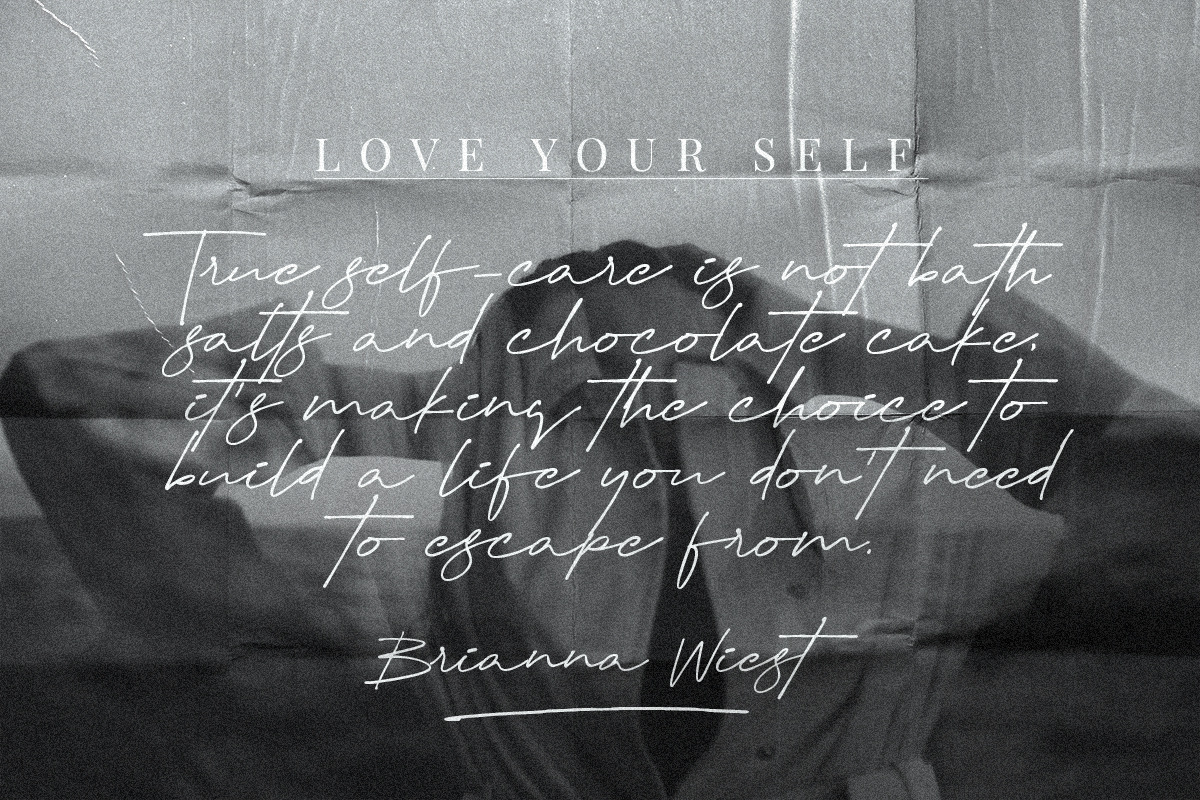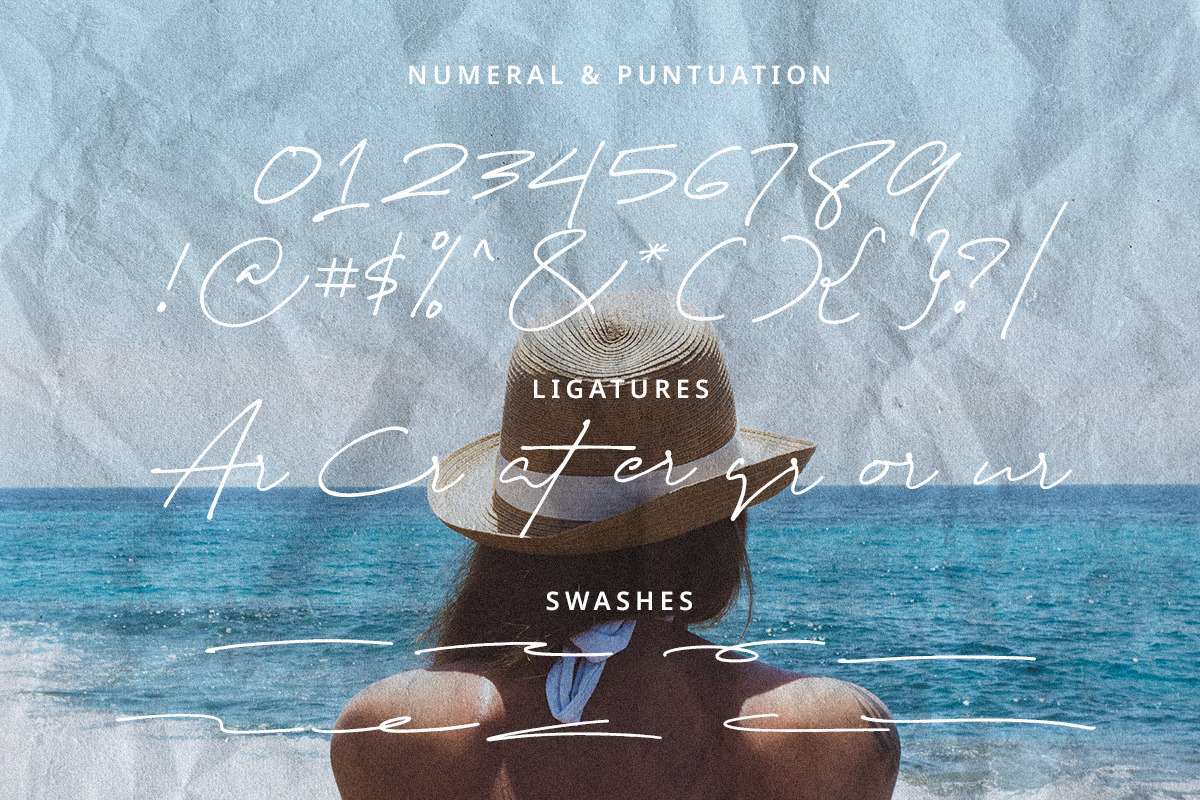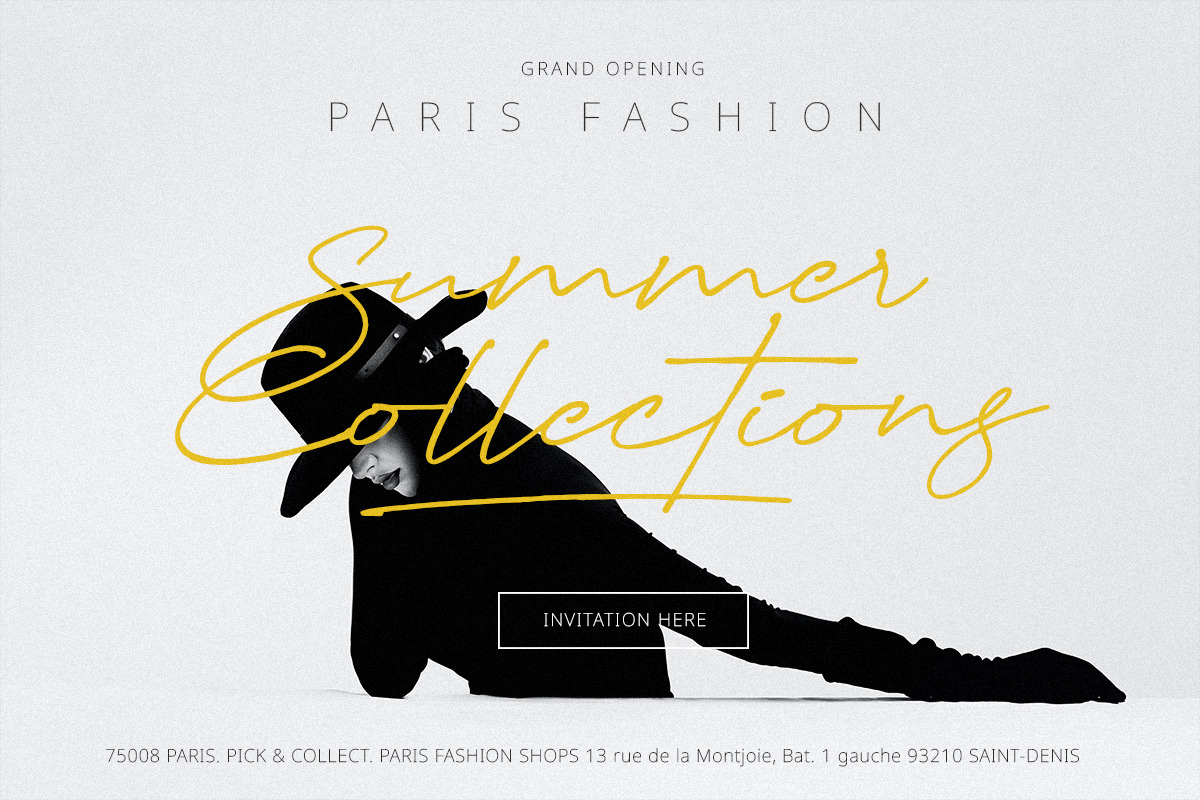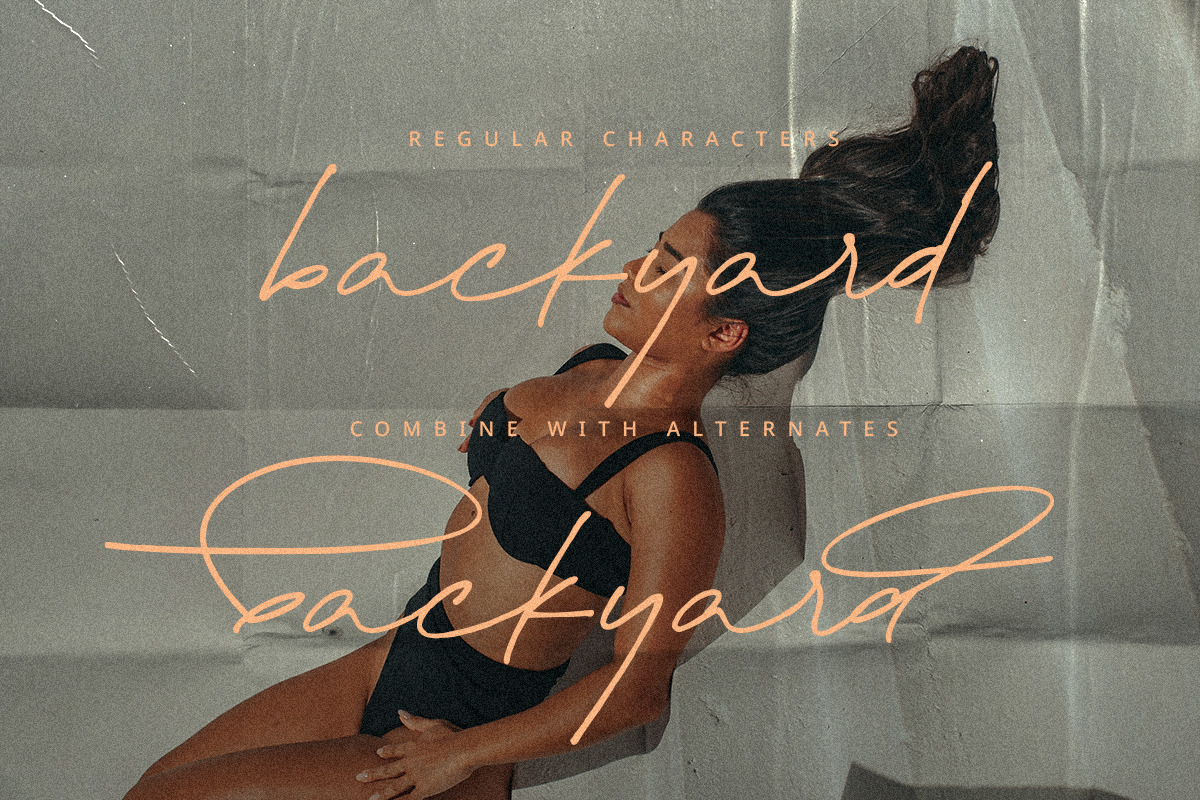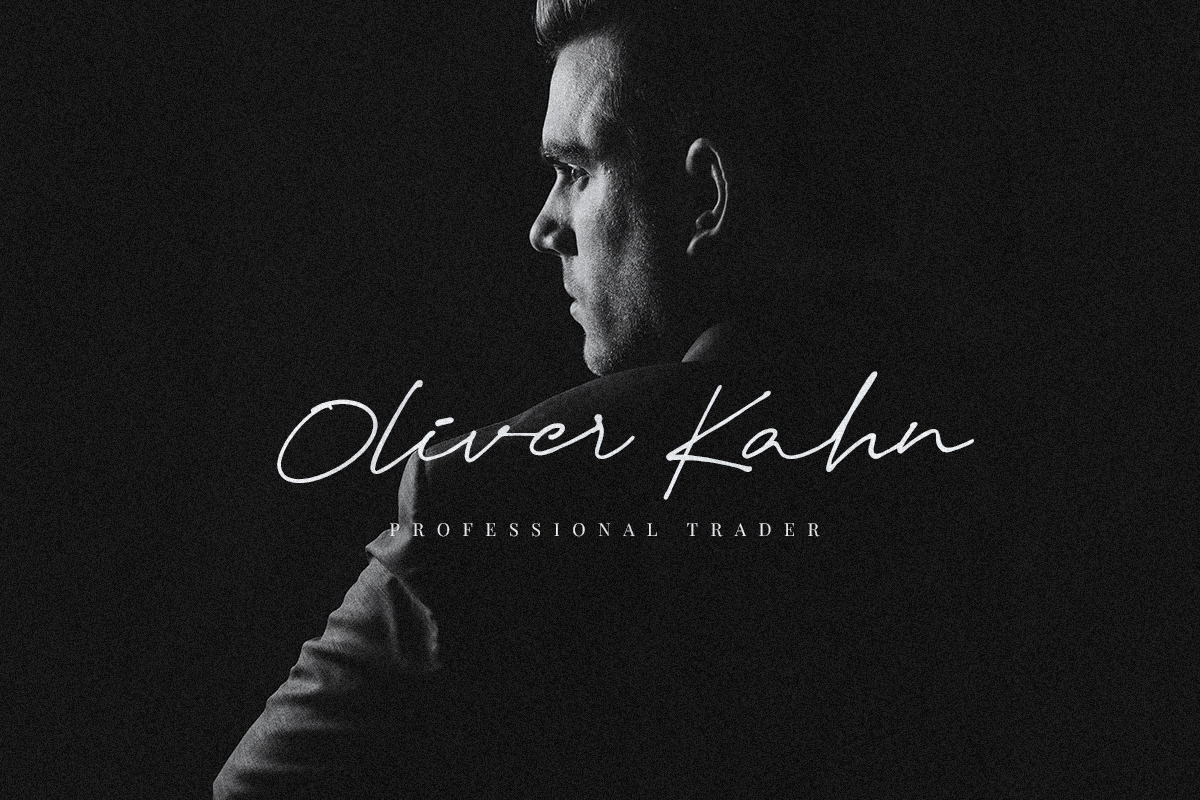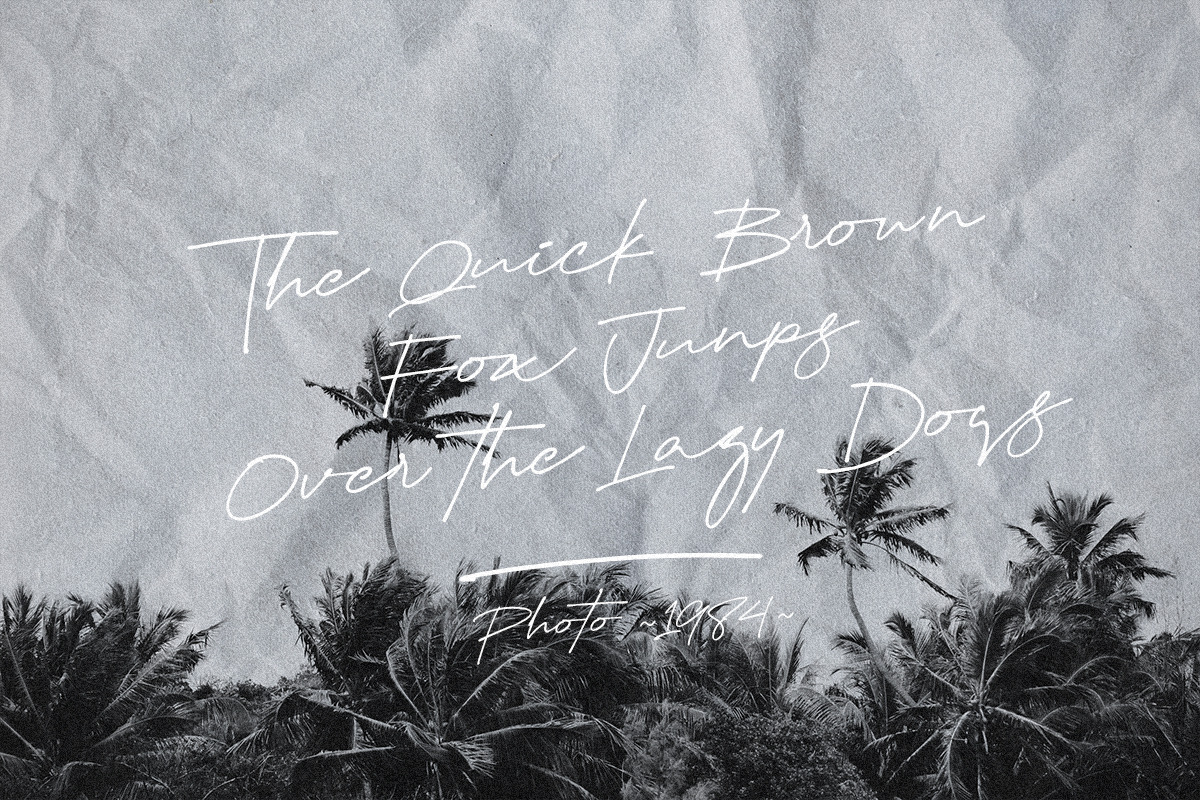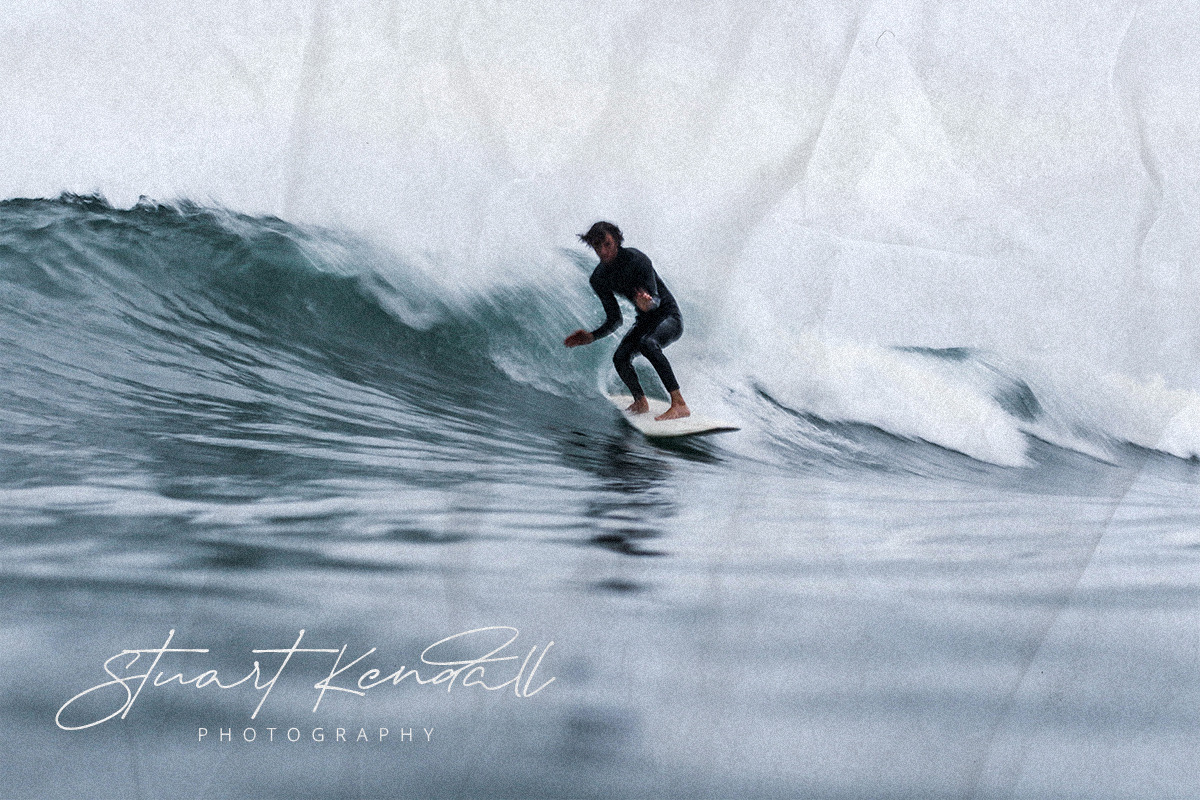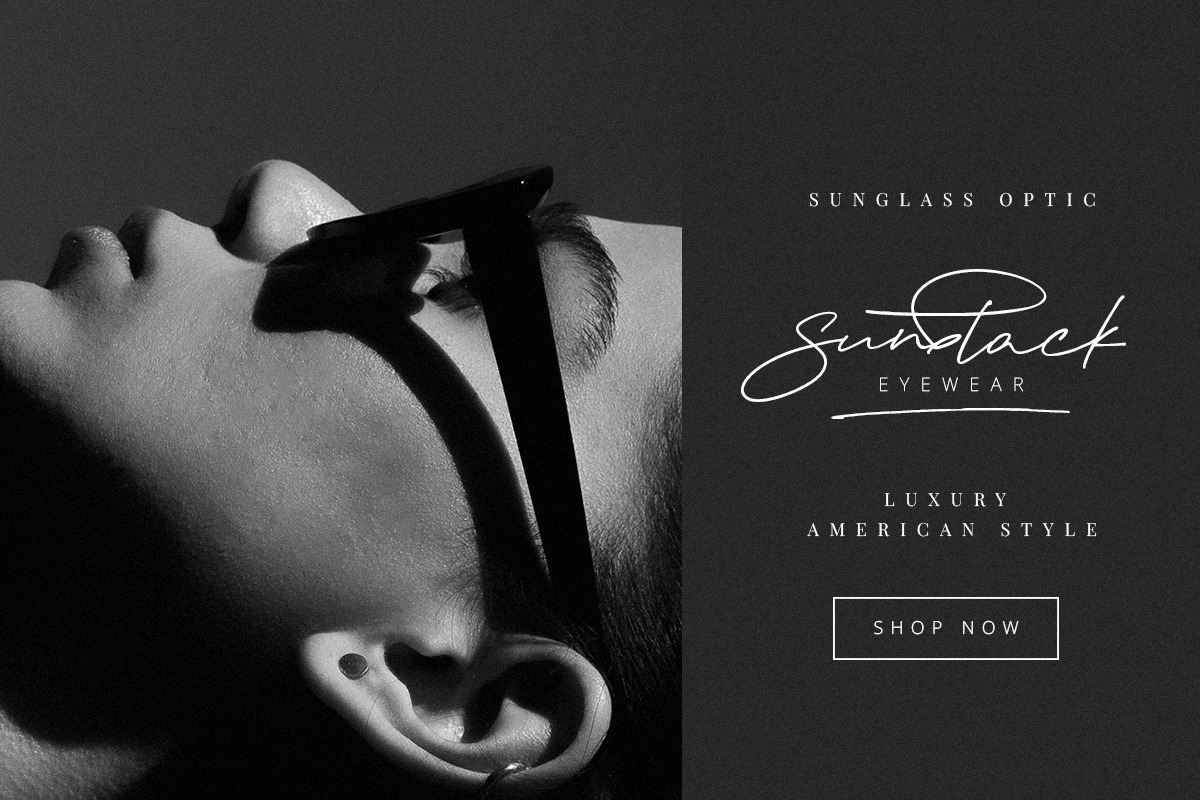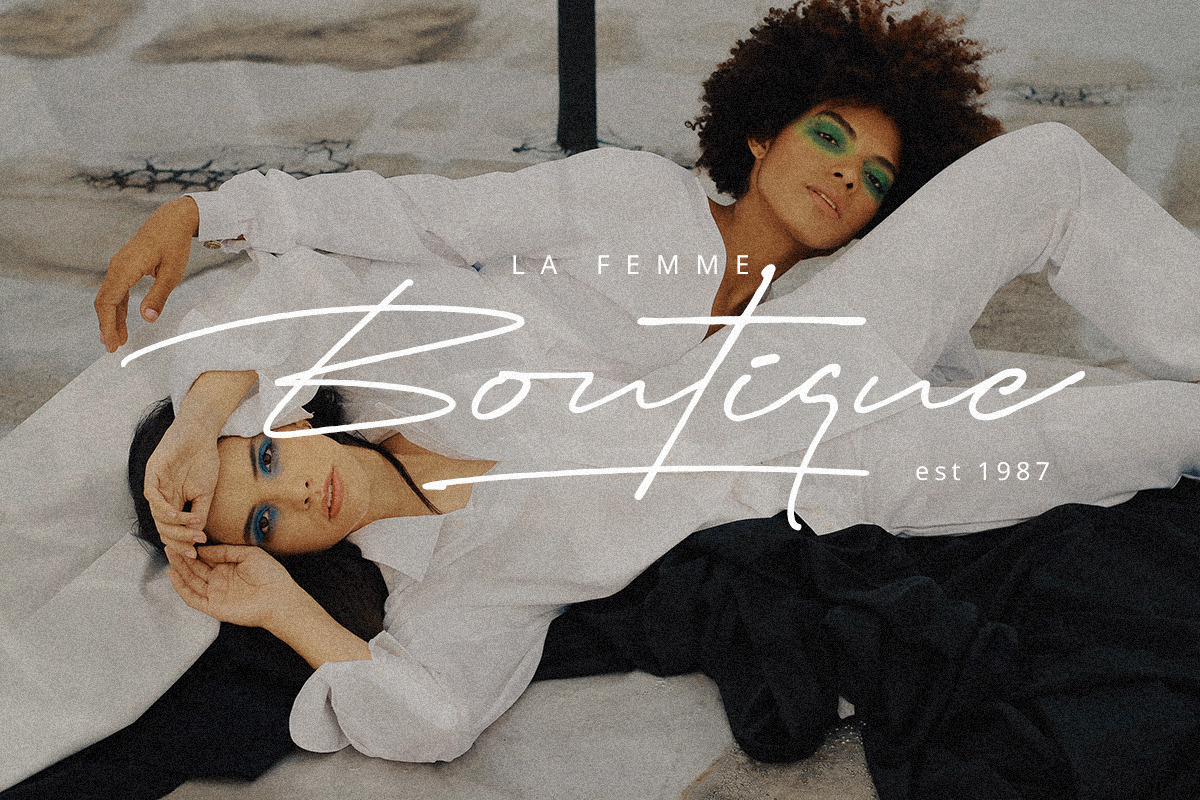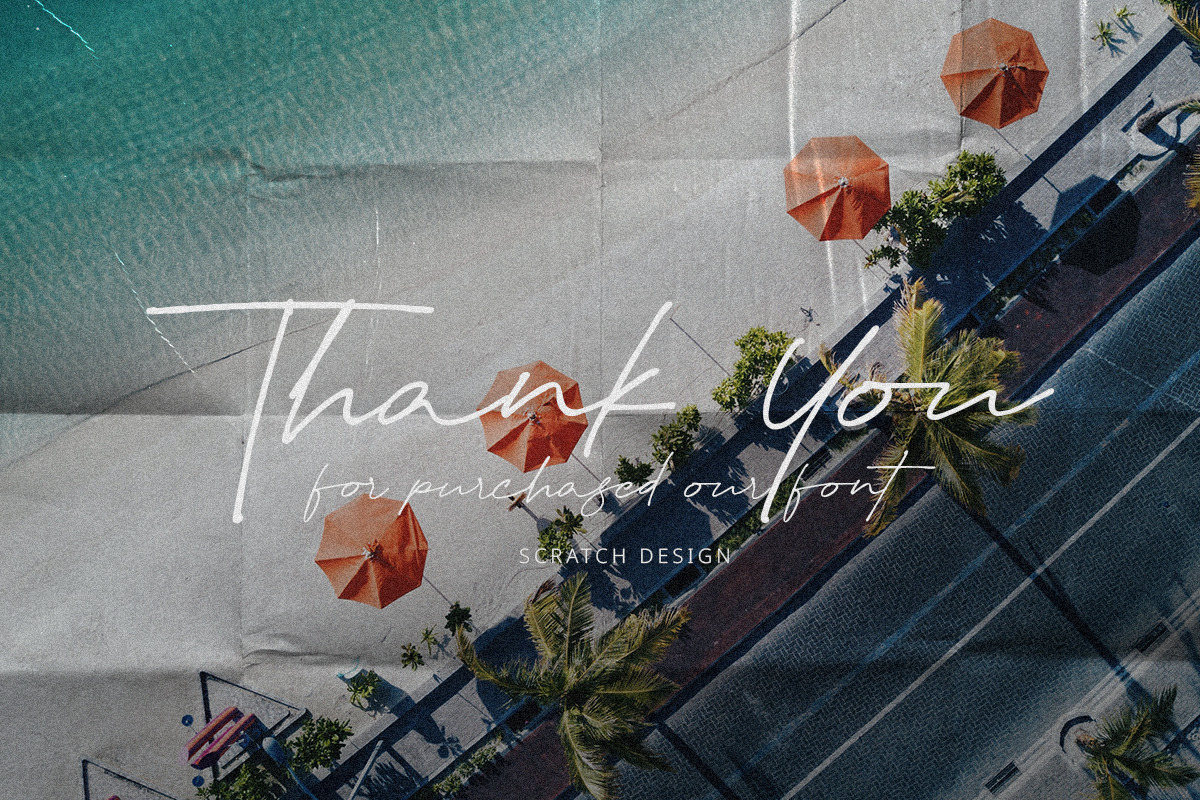
Creative Signature | Modern Script
Introducing Creative Signature! It's a modern script font with a signature-style look. It's highly recommended for you who want to make some designs with a realistic signature style. This font will work for invitation design, wedding design, fashion design, advertising design, posters, packaging, book cover title, quote, social media post, etc. Open your Opentype features using the script font to use the ligatures, alternates, and swashes. As you type, your text will look like a natural signature or handwriting.